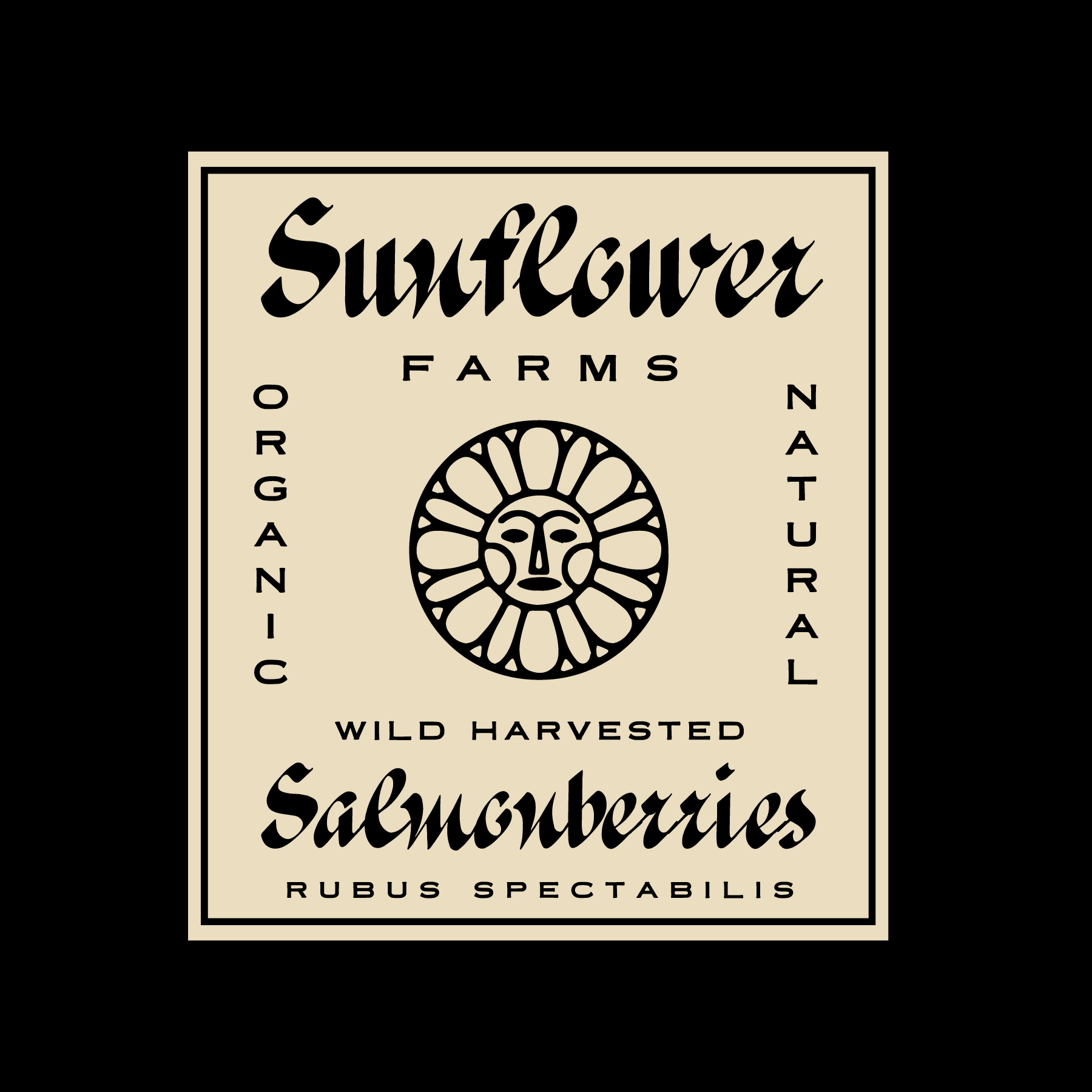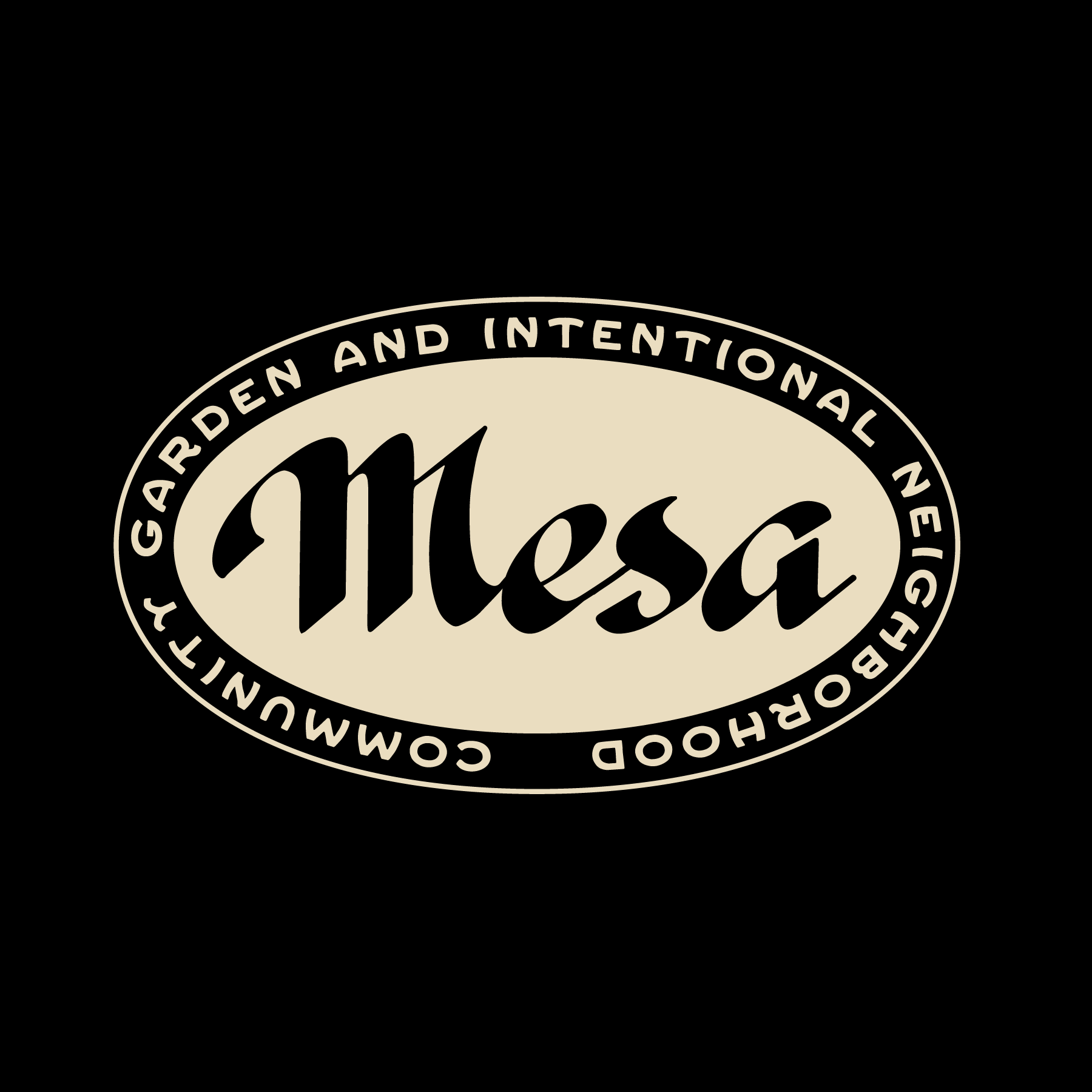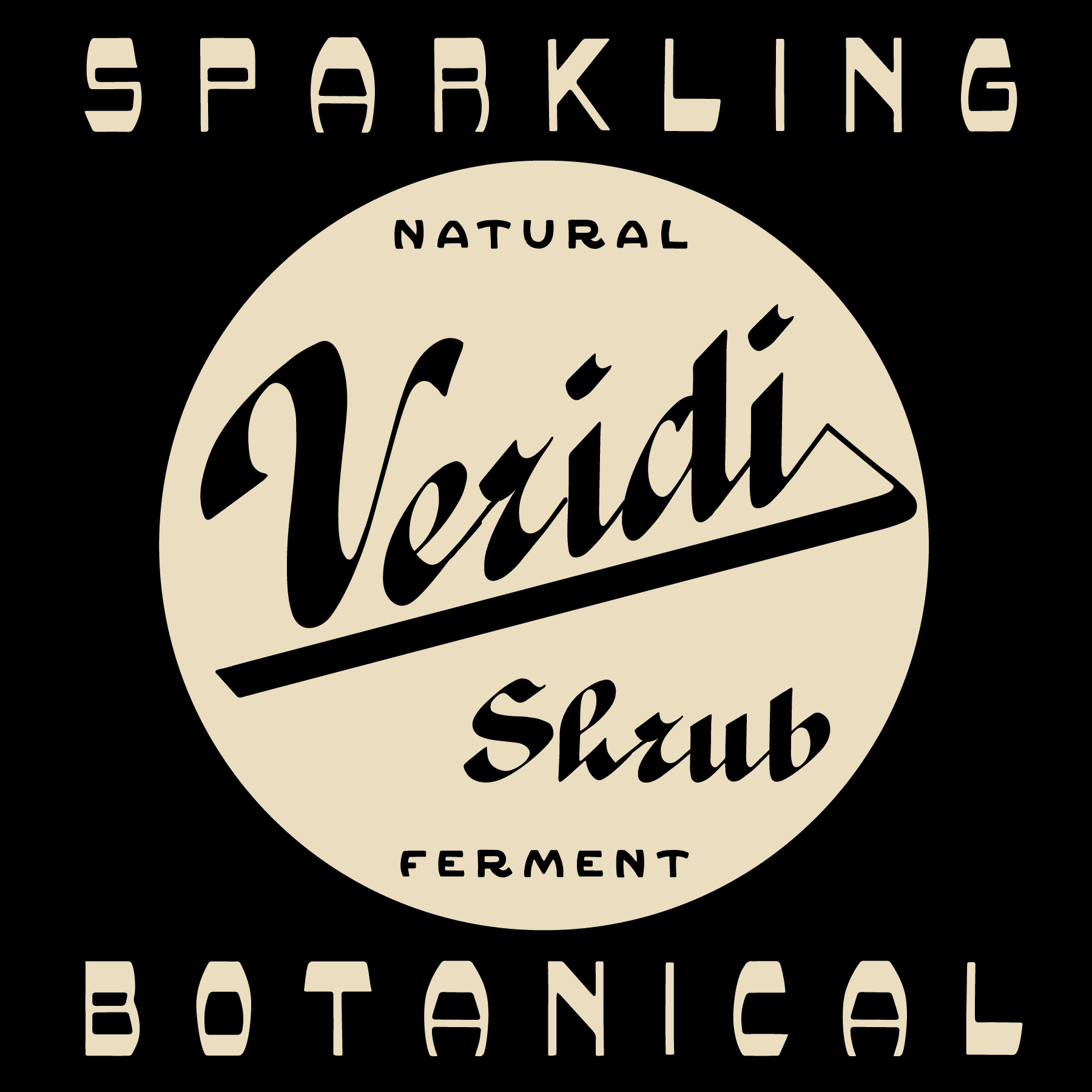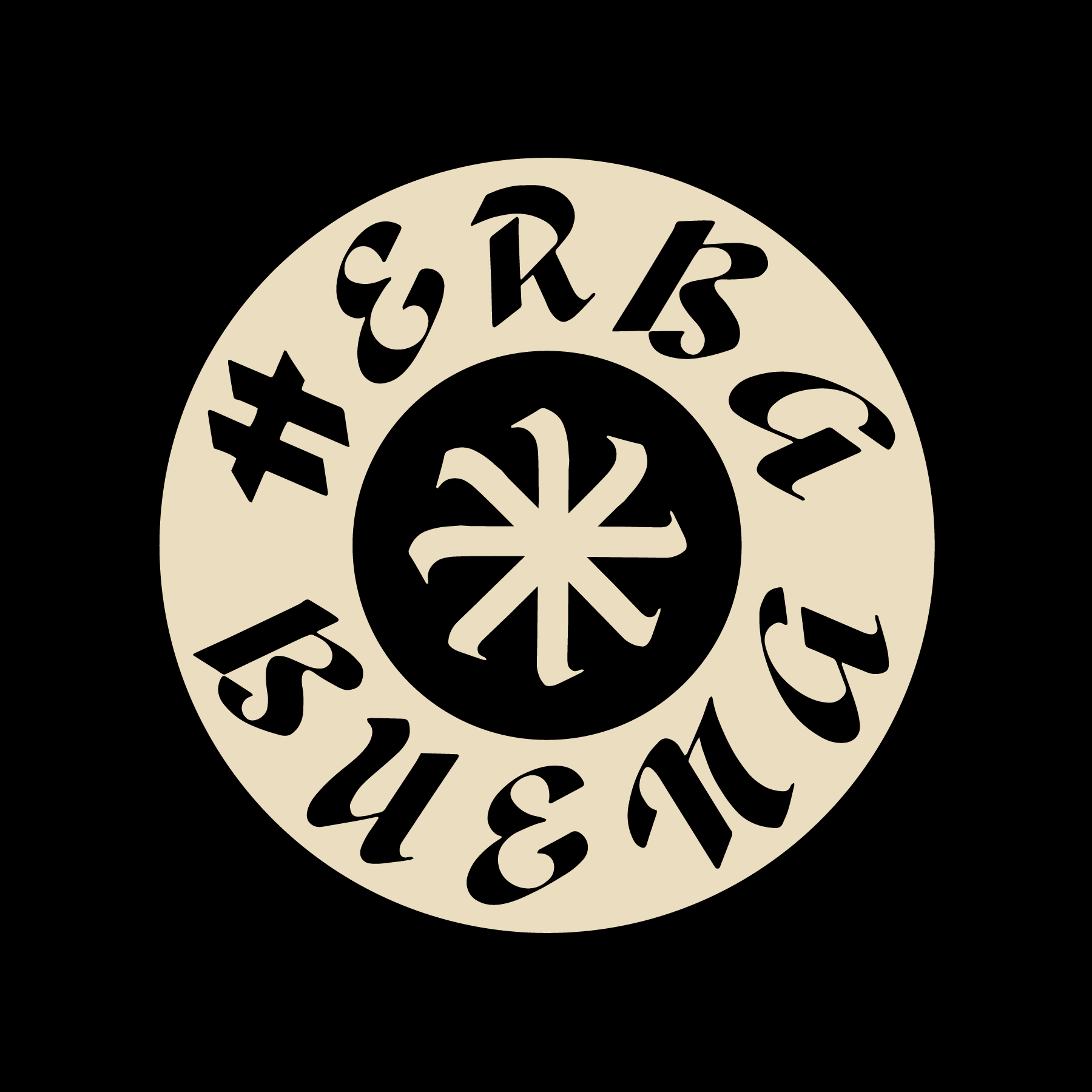
Herba Buena
A new personal favorite of the Wabi Sabi studio! Herba Buena springs forth and grows vigorously from a seed that long lay dormant. This classic script fits into any world that you might be weaving. Perfect for book covers, sparkling tonics, farm fresh products, elevated dining, or any wide variety of wordmarks. The sky is the limit and Herba Buena awaits.